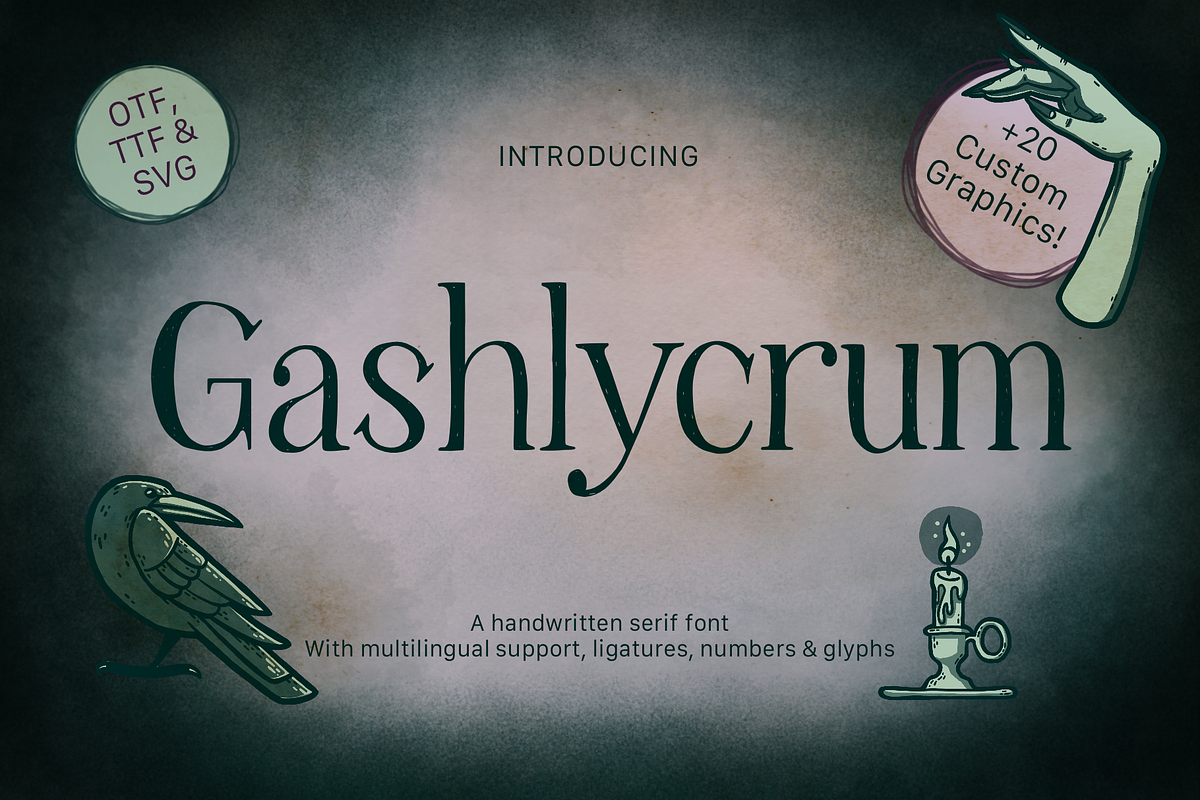
Gashlycrum Font Free Download
Gashlycrum Font Free Download is a bold, gothic-inspired typeface that brings a dramatic and edgy touch to your designs. With its intricate letterforms and sharp, pointed details, this font is perfect for creating dark, mysterious branding, event posters, book covers, logos, and any project that needs a bold, vintage style.
The unique design of Gashlycrum Font Free Download captures the essence of classic gothic typography, making it ideal for horror-themed designs, Halloween promotions, or fantasy-based projects. Whether you're designing for a creative event or a spooky brand, this font adds a strong personality to your typography.